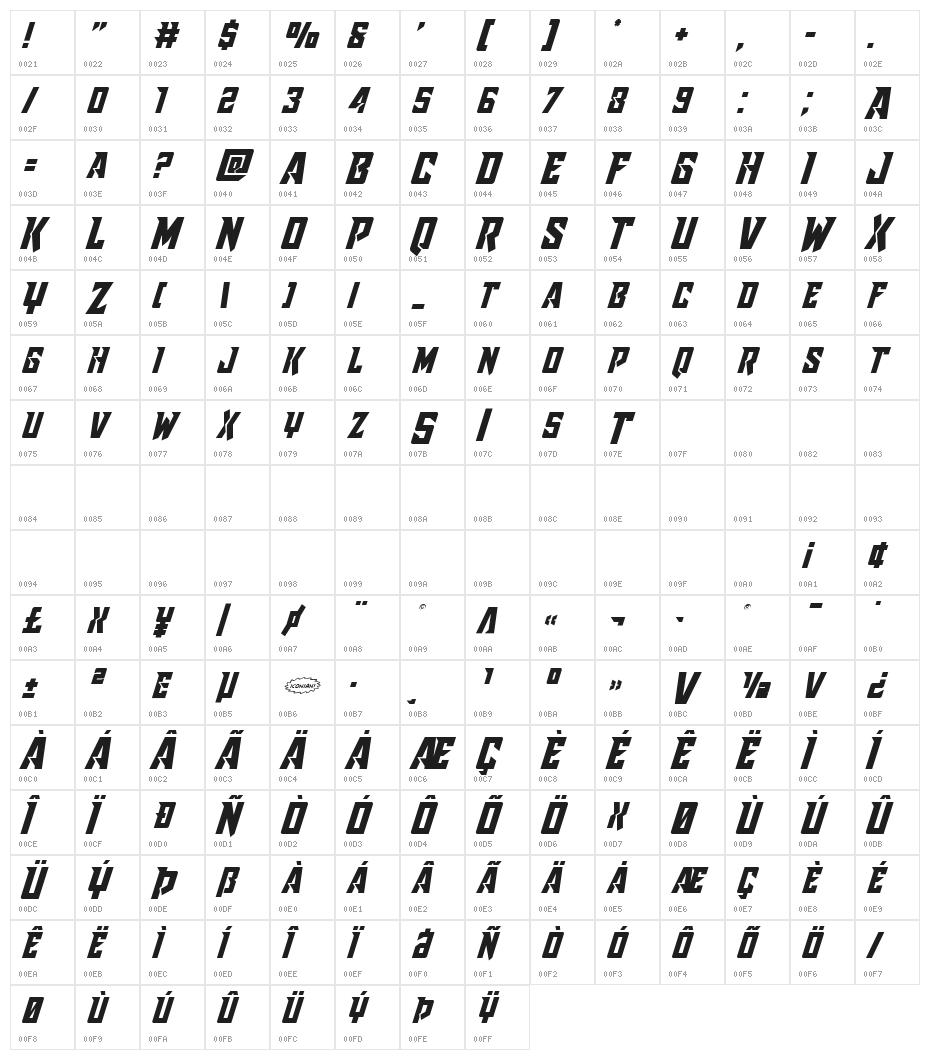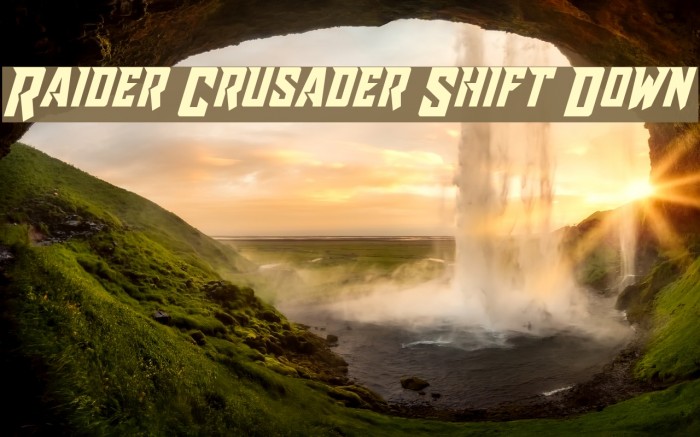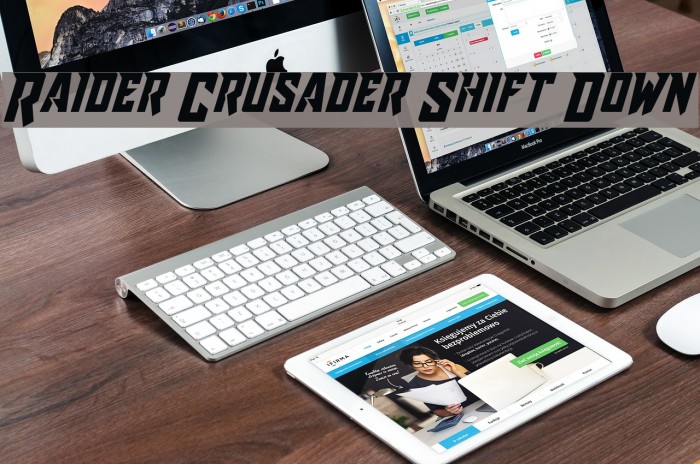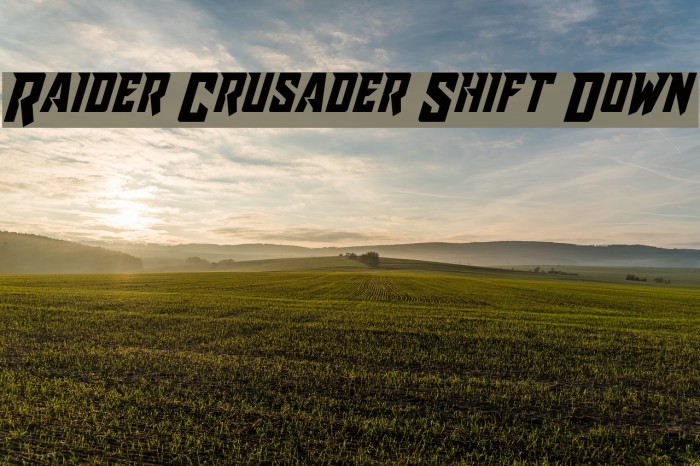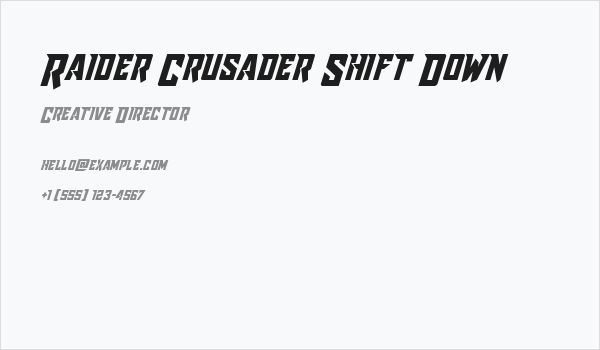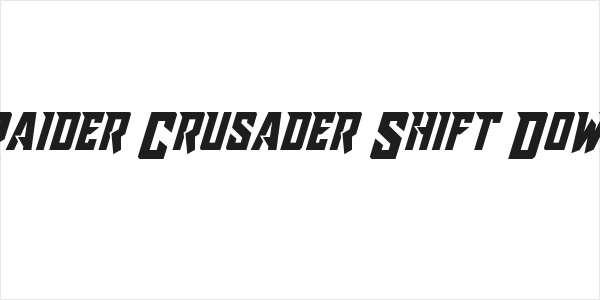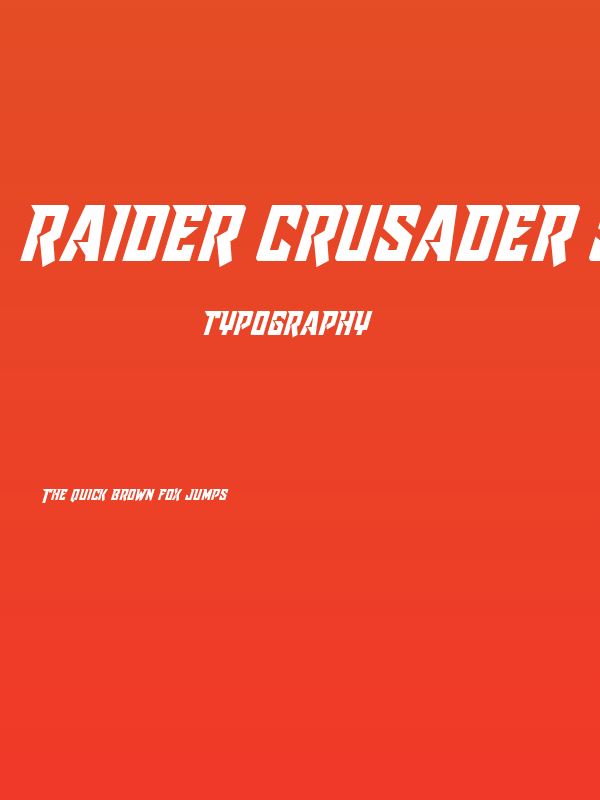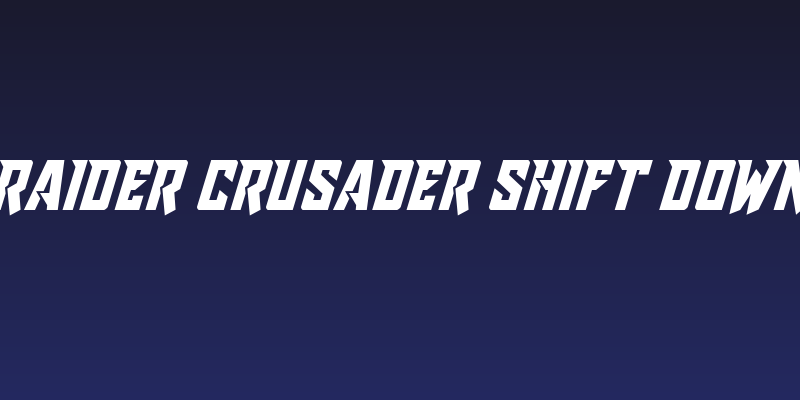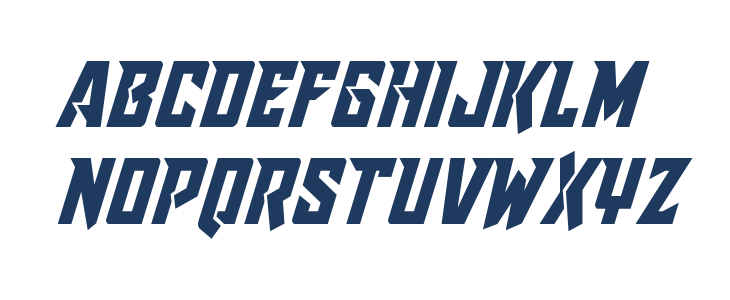
Raider Crusader Shift Down Font
Raider Crusader Shift Down Description
This font exhibits a bold and dynamic style with sharp, angular edges and a strong presence. The characters are slanted, giving a sense of movement and energy, reminiscent of sports or action themes. The uppercase letters are particularly striking, with a blocky, geometric design that commands attention. The numbers and special characters maintain this bold aesthetic, ensuring consistency across all glyphs. The overall appearance is modern and aggressive, making it suitable for projects that require a strong visual impact.